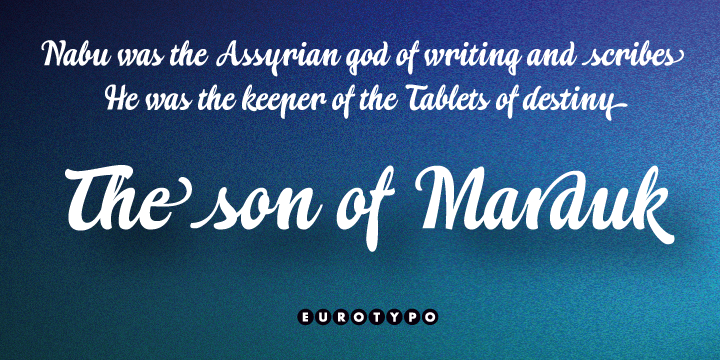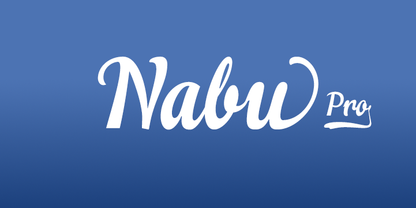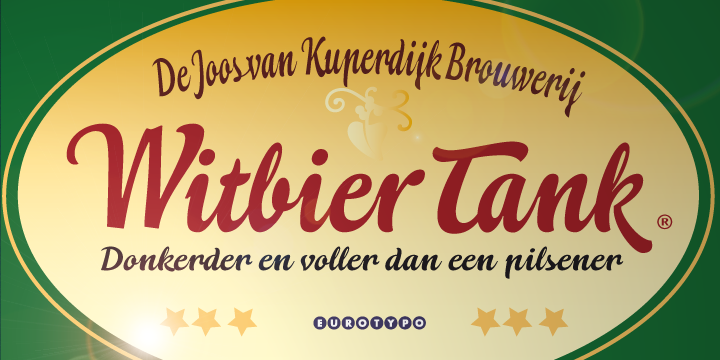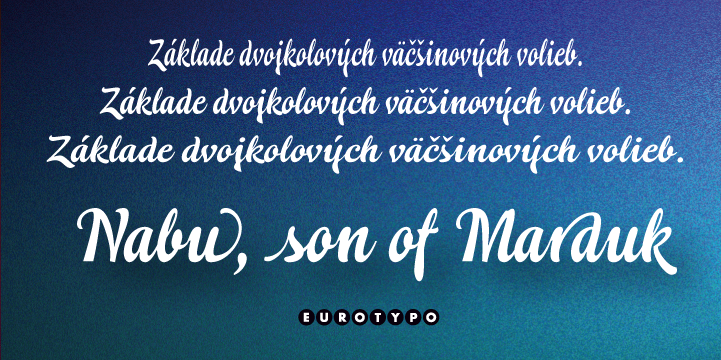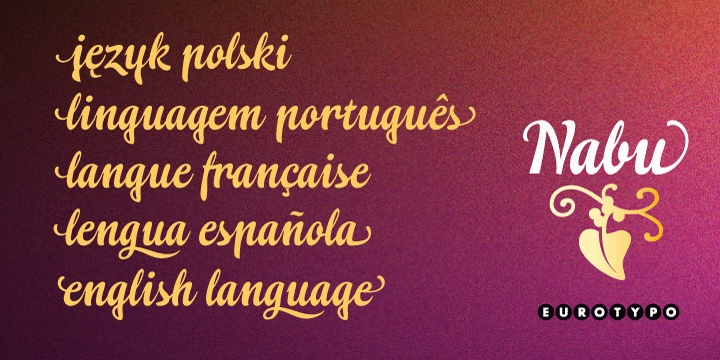
Nabu Pro
Inspired by the God of Writing
Nabu (in Biblical Hebrew Nebo נבו) takes its name from the Assyrian god of wisdom and writing—the revered patron of scribes, scholars, and storytellers. Keeper of the legendary Tablets of Destiny, Nabu shaped the fate of humankind. Linked with the planet Mercury in late Babylonian astrology and later equated with Apollo and the Roman Mercury, Nabu stands as a timeless symbol of knowledge, creativity, and eloquence.
A Versatile Script for Magazines & Branding
Inspired by this rich heritage, Nabu is a versatile and elegant script font designed to bring sophistication and clarity to any project. Perfect for magazines, websites, packaging, logos, and advertising, this script blends beauty with exceptional usability.
Advanced OpenType Features
Powered by full OpenType features, Nabu offers a wide range of expressive combinations—including standard ligatures, contextual alternates, word endings, and stylish tails—giving your typography a natural, handcrafted flow. Its excellent legibility and precise kerning make it suitable even for longer text passages.
A Refined Tool for Creators
Nabu is more than just a font—it’s a refined tool for creators who want their message to feel both artful and enduring.